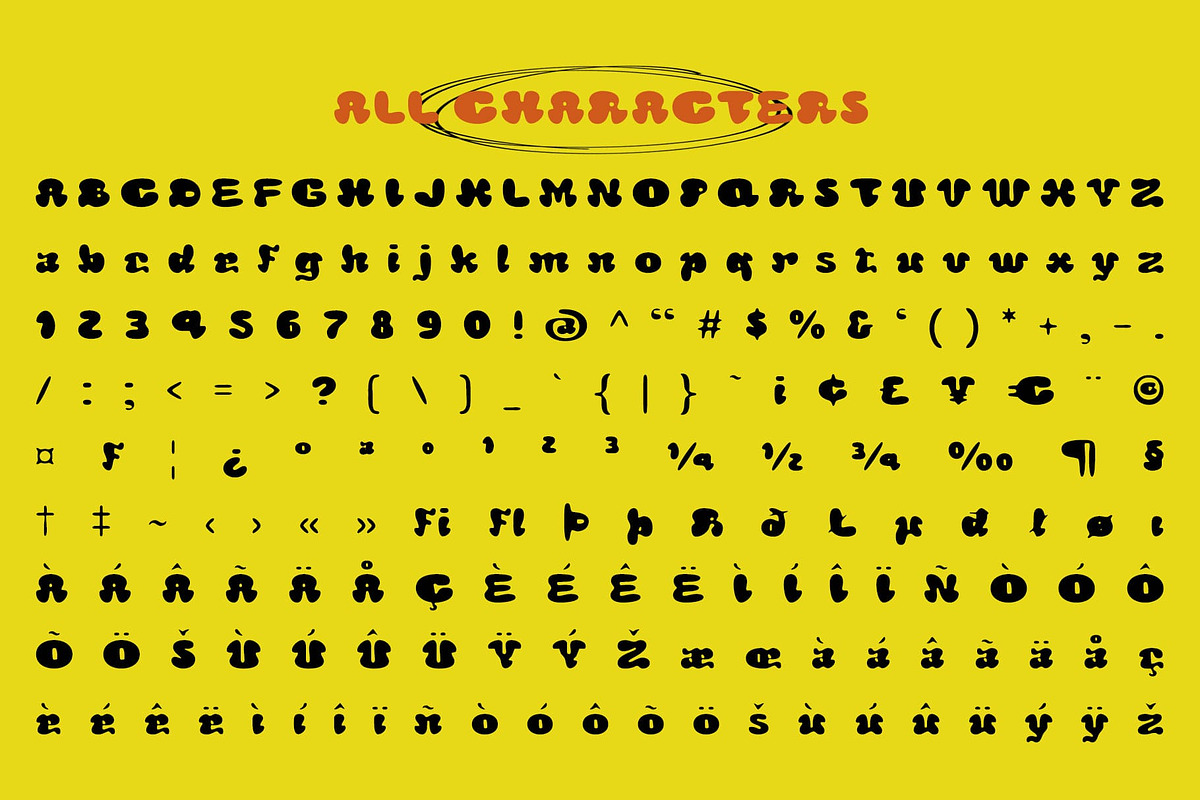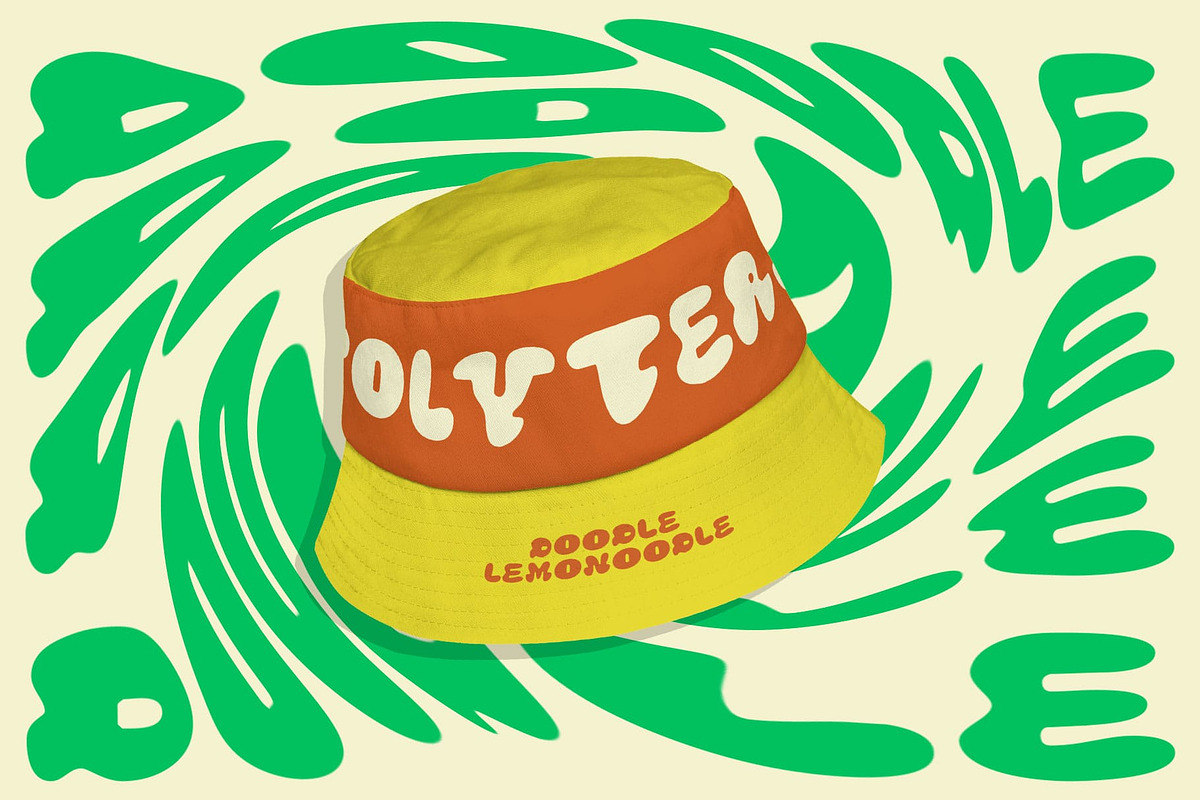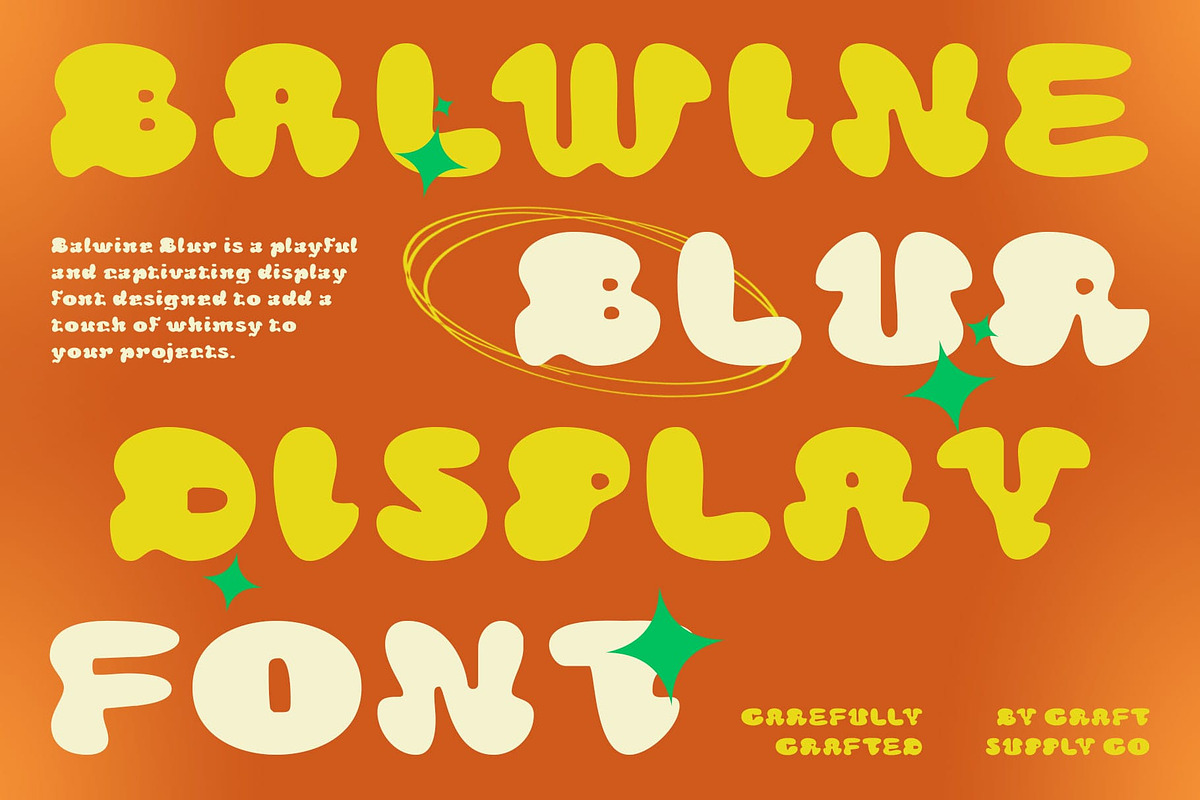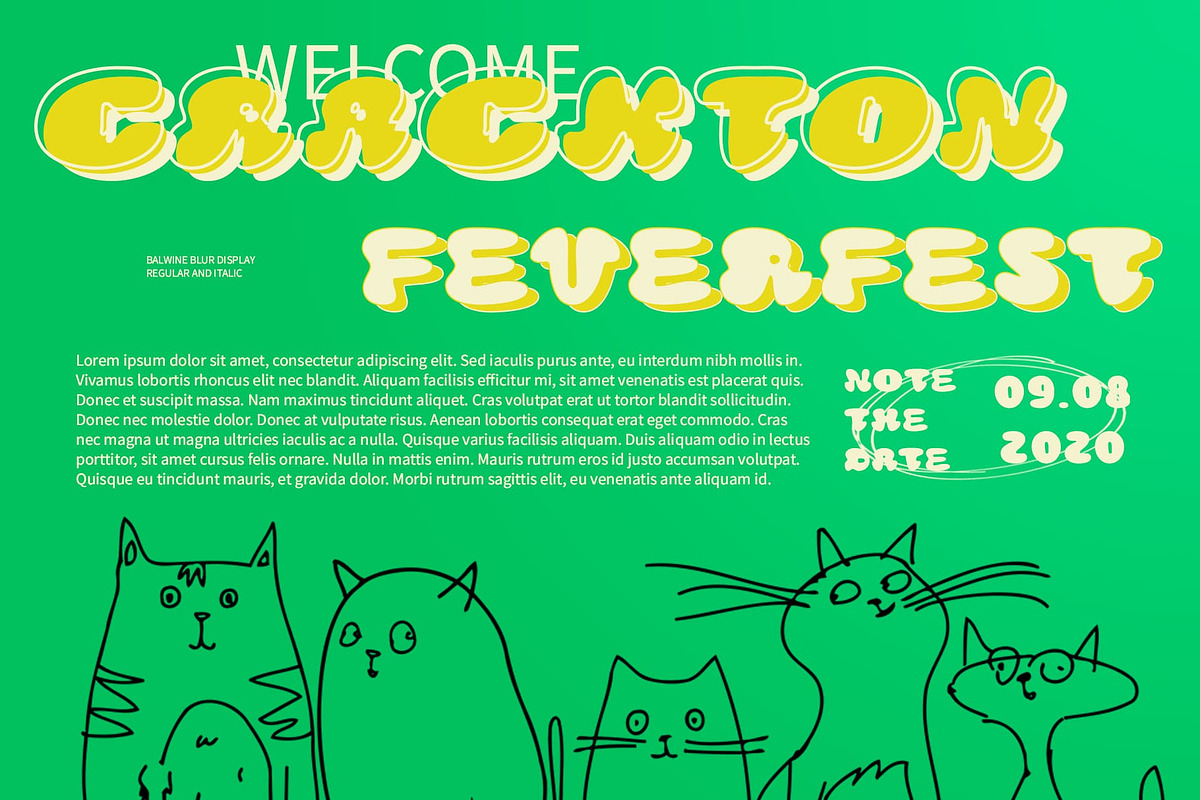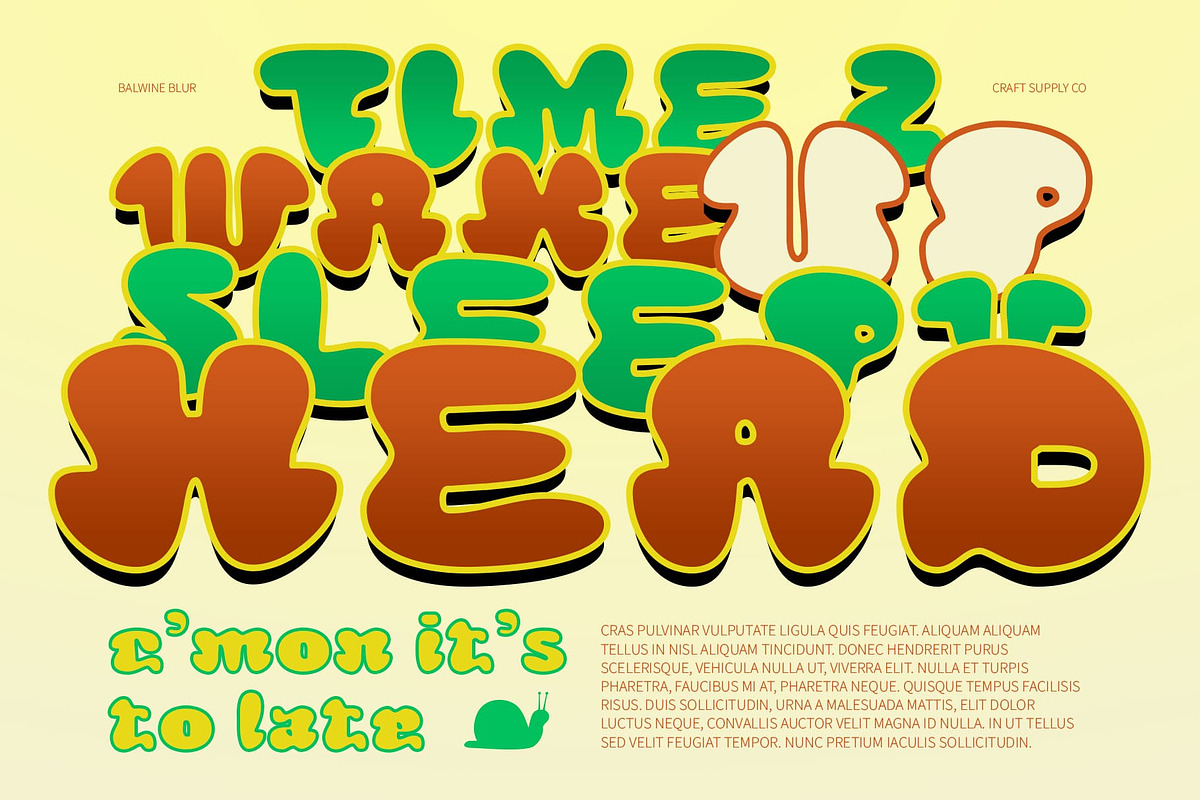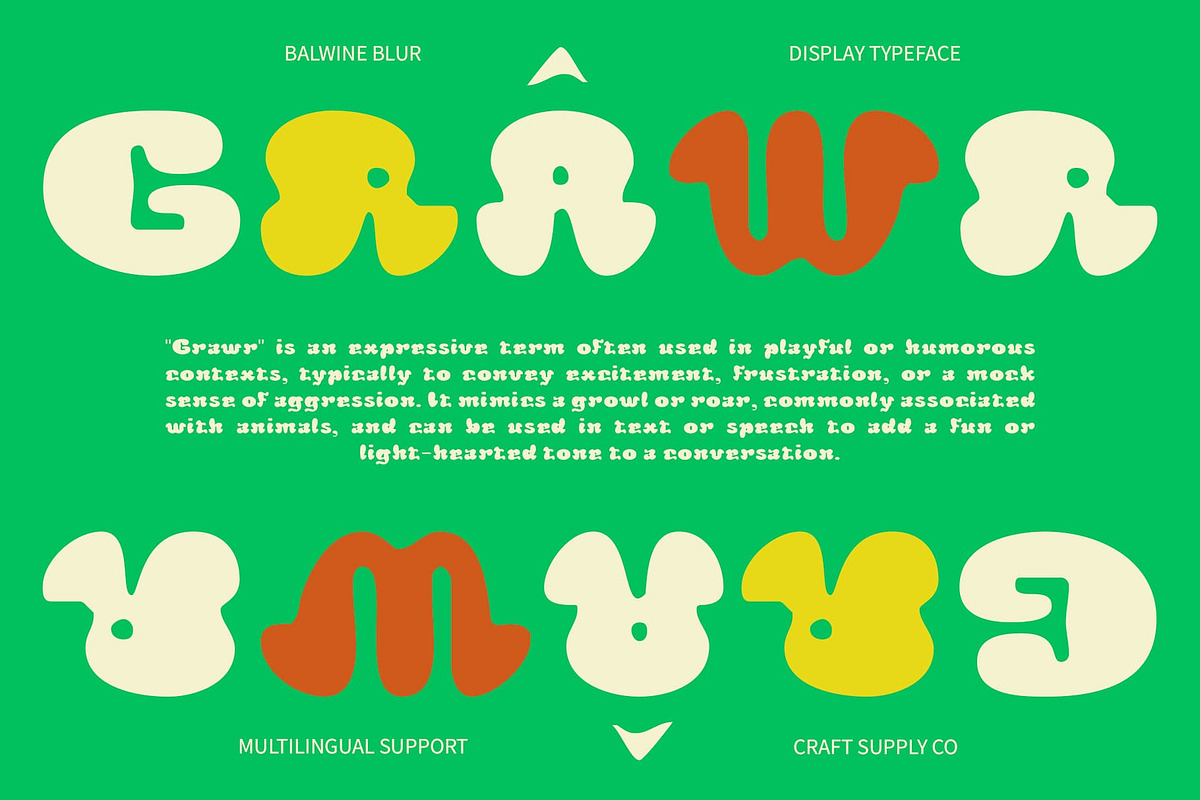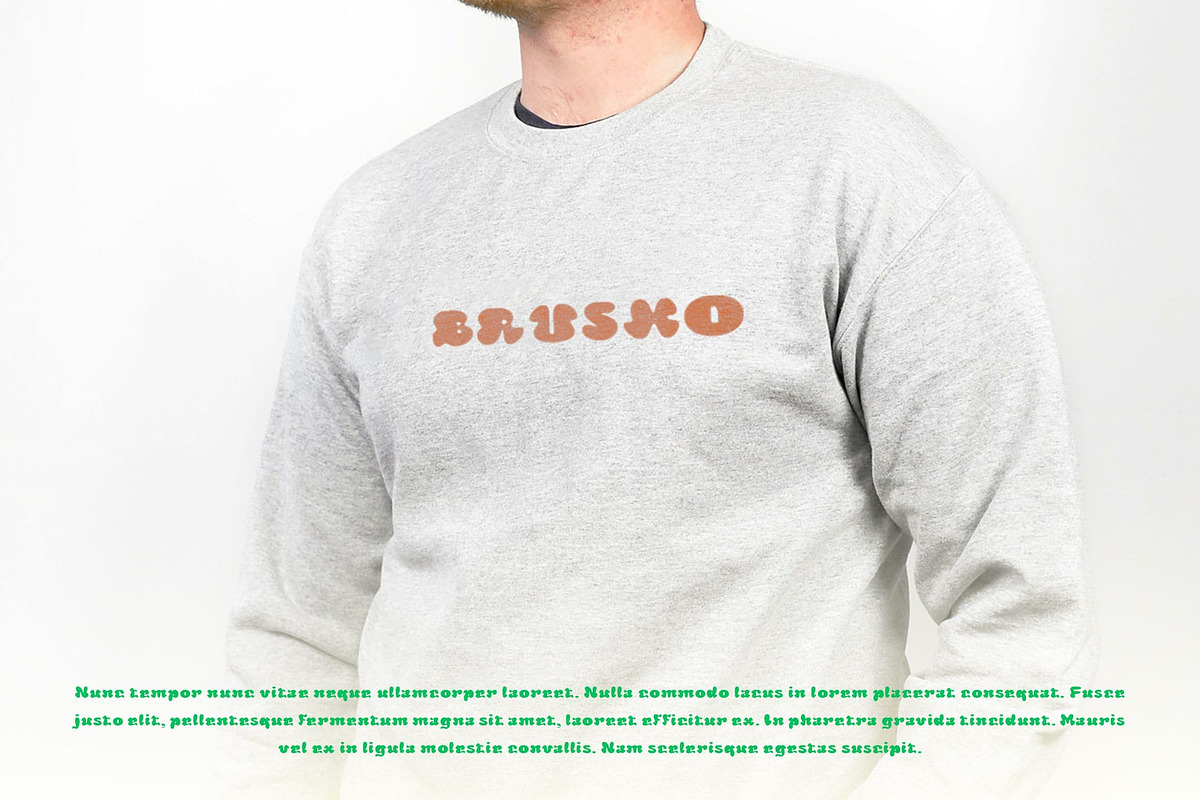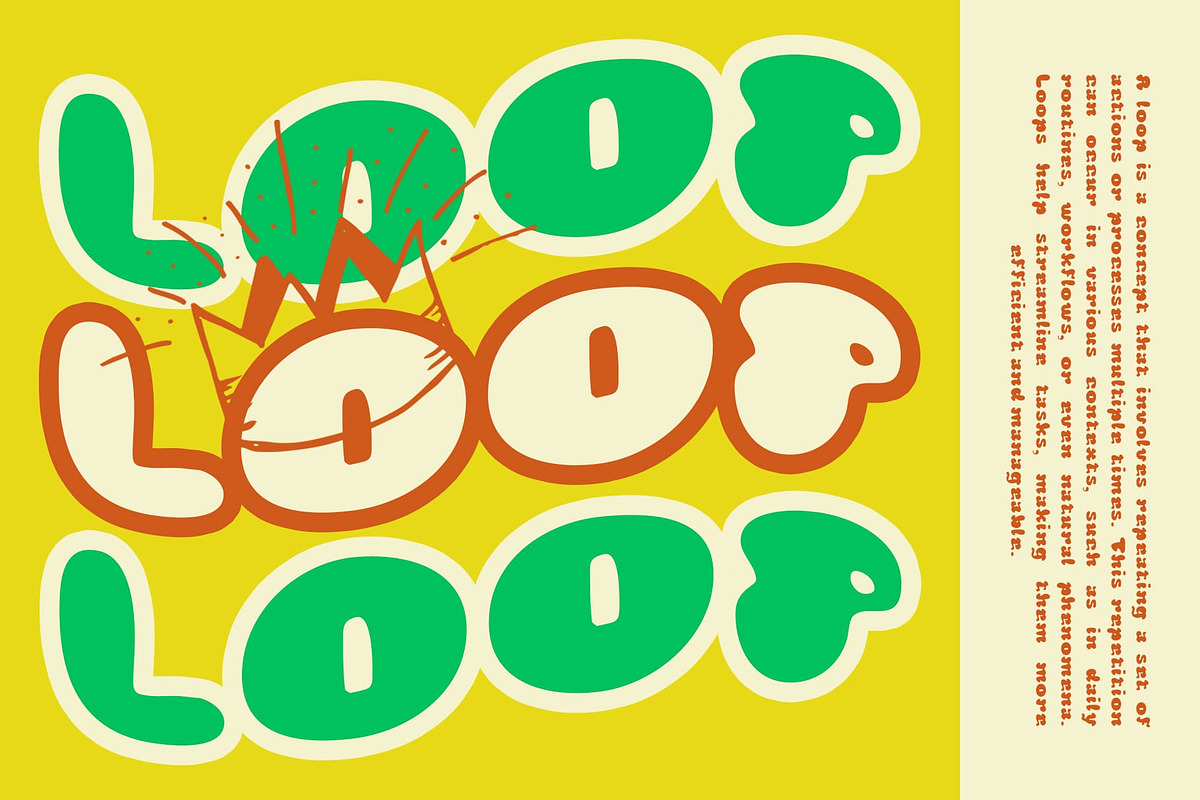
Balwine Blur
Balwine Blur Font: A Playful Display Font with Bubble Shapes
Cute and Funky Design Balwine Blur is a delightful display font characterized by its charming bubble shapes, exuding a cute, funky, and cheerful vibe. Each letterform is designed with round, endearing contours that create a fun and energetic atmosphere. The whimsical style of Balwine Blur makes it an ideal choice for projects that seek to convey joy and playfulness.
Dynamic Blur Effect for Liveliness The unique blur effect applied to Balwine Blur enhances its playful nature, giving the font a dynamic and lively impression. Each letter appears as if it’s in motion or vibrating, adding an extra layer of excitement to your designs. This effect not only captures attention but also creates a sense of movement that engages viewers and invites them to explore further.
Visual Appeal with Smooth Edges With smooth edges and bulging shapes, Balwine Blur fosters a visually appealing design that is both inviting and memorable. The font’s soft curves enhance its friendly persona, making it perfect for projects that aim to create a warm and welcoming impression. This playful aesthetic is sure to resonate with audiences of all ages, adding a touch of fun to any design.